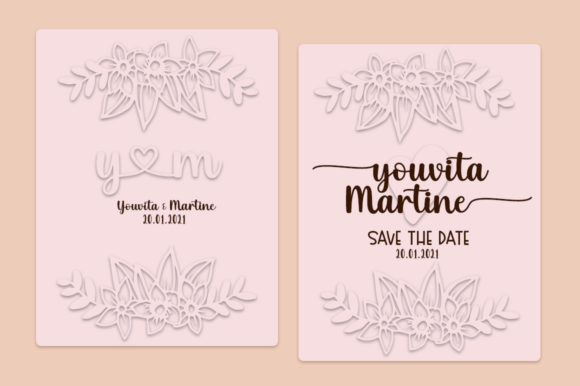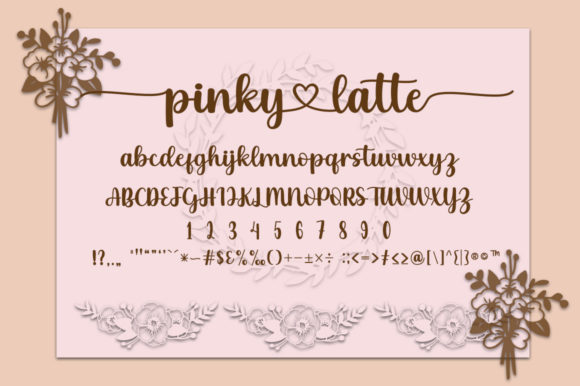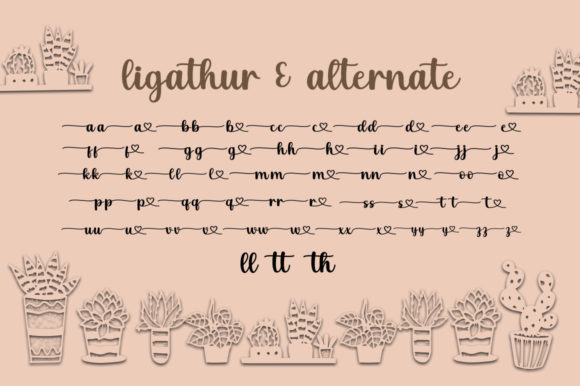
Introduction to Pinky Latte Font
As a designer, there’s nothing quite like the thrill of discovering a new font that perfectly captures the essence of your creative vision. For me, it was the moment I stumbled upon the Pinky Latte Font – an elegant and dainty duo font that features sweet and delicate swashes. Its high-quality design and transparent background made it the perfect addition to my latest project.
Whether you’re working on a high-end branding campaign or a personal creative project, the Pinky Latte Font is an invaluable design resource that’s sure to elevate your work. This free download is a game-changer for designers looking to add a touch of sophistication and whimsy to their designs. With its versatility and charm, the Pinky Latte Font is sure to become a go-to choice for many creative endeavors.
From letterheads and titles to stationery and more, the Pinky Latte Font is a must-have for any designer looking to add a touch of elegance and sophistication to their work. In this article, we’ll delve into the world of this charming font and explore its many uses and benefits.
Pinky Latte Font
- High-quality, unique script font designed for creative projects, perfect for adding a personal touch to your design.
- Unique characteristics include a playful, handwritten feel and a wide range of ligatures and swashes for added flair.
- Perfect for use in invitations, signage, and other creative projects where a touch of personality is desired.
Honest Review: Pinky Latte Font
One of the things that really stood out to me about the Pinky Latte Font was its high quality and versatility. The font has a wide range of styles and weights, making it perfect for a variety of design projects.
Here are some of the things that I liked about the font:
- ✨ High quality and clear typography
- ✨ Wide range of styles and weights
- ⚠️ Limited transparency options (although the font does have a transparent background)
Overall, I was impressed with the Pinky Latte Font and would definitely recommend it to designers looking for a high-quality, free design resource for their next creative project.
Getting the Most Out of Pinky Latte Font
To maximize the potential of the Pinky Latte Font, use it in a creative project that showcases its unique characteristics. Experiment with different font sizes, colors, and styles to create a visually appealing design. Consider combining it with other design resources to add depth and interest to your project.
- Food and beverage branding
- Children’s book illustrations
Is the Pinky Latte Font suitable for a creative project that requires a high-quality font?
The Pinky Latte Font is a great design resource for creative projects that require a high-quality font. Its unique design and transparent background make it an ideal choice for various design applications, from logos to branding materials. The font is also easy to customize and can be used in conjunction with other design elements to create a cohesive look.